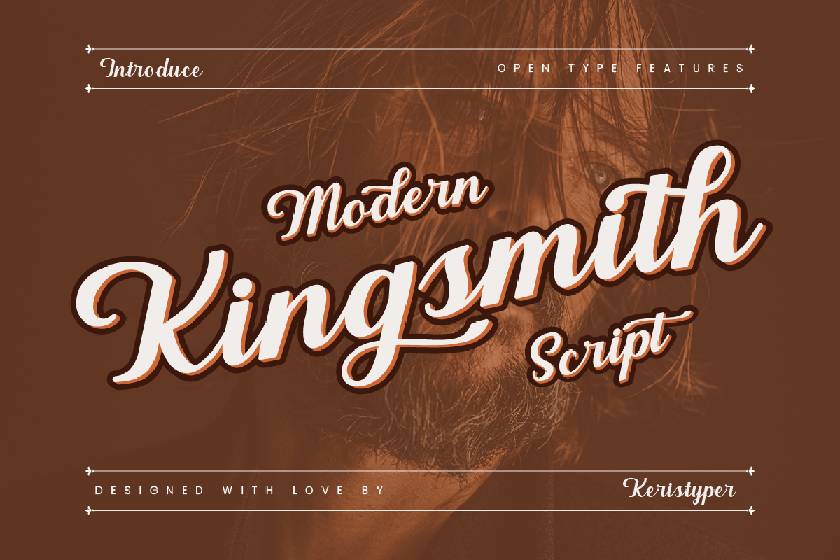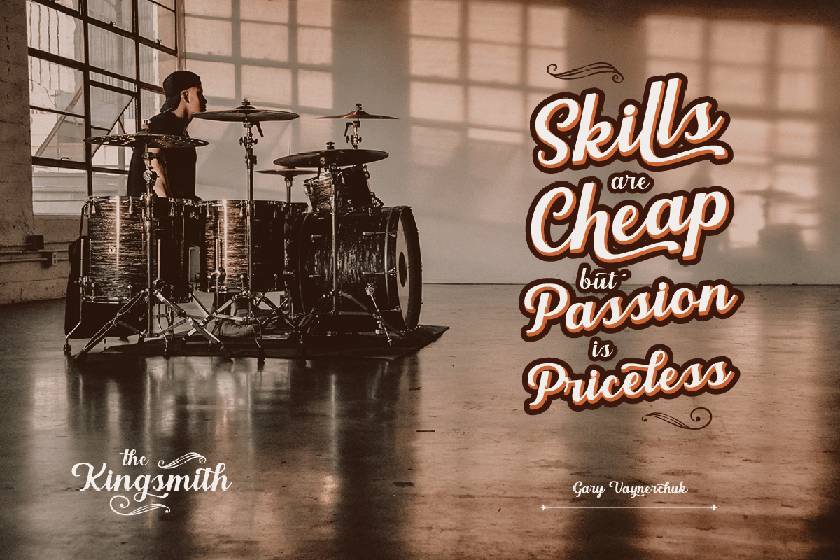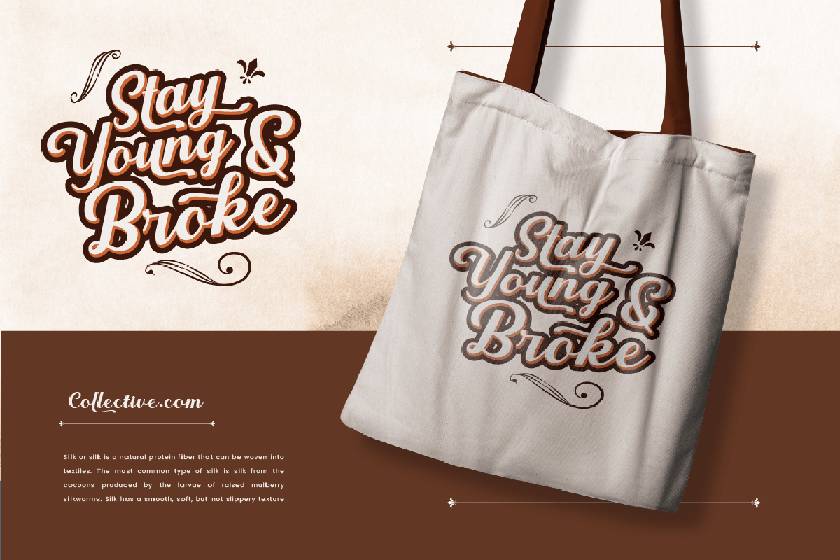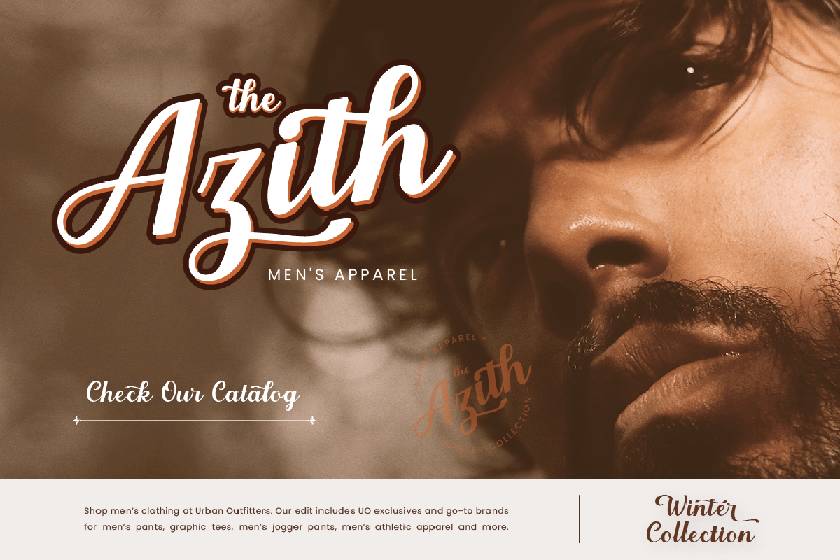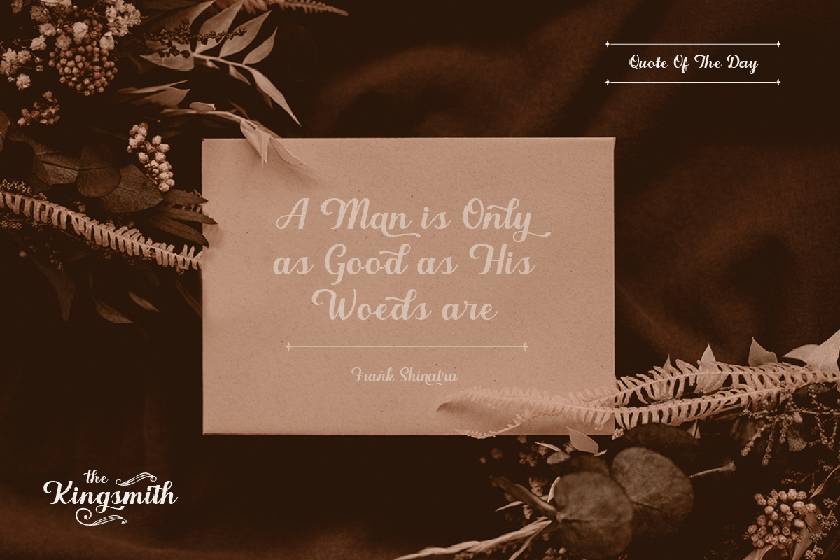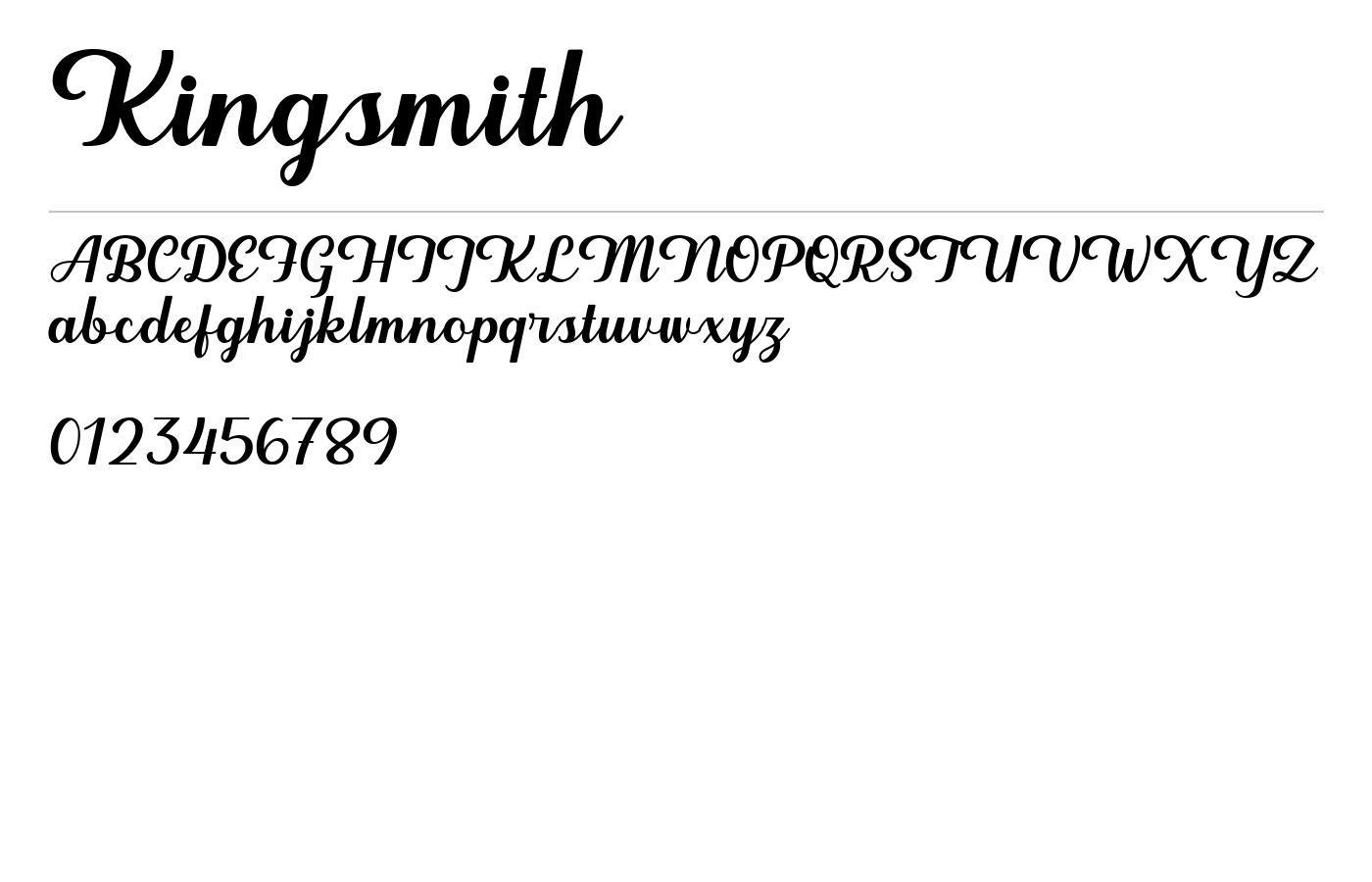
Kingsmith is an elegant script font with smooth, flowing letterforms that evoke a classic and refined style. Its moderate weight and slightly condensed width make it ideal for sophisticated branding, invitations, and stylish headlines where a touch of grace and personality is desired. This font works beautifully in luxury and fashion contexts, adding a timeless and polished feel to any design.
Kingsmith Font
About Kingsmith Font
| Font family | Kingsmith Font |
| Designer | Tezar Tantular |